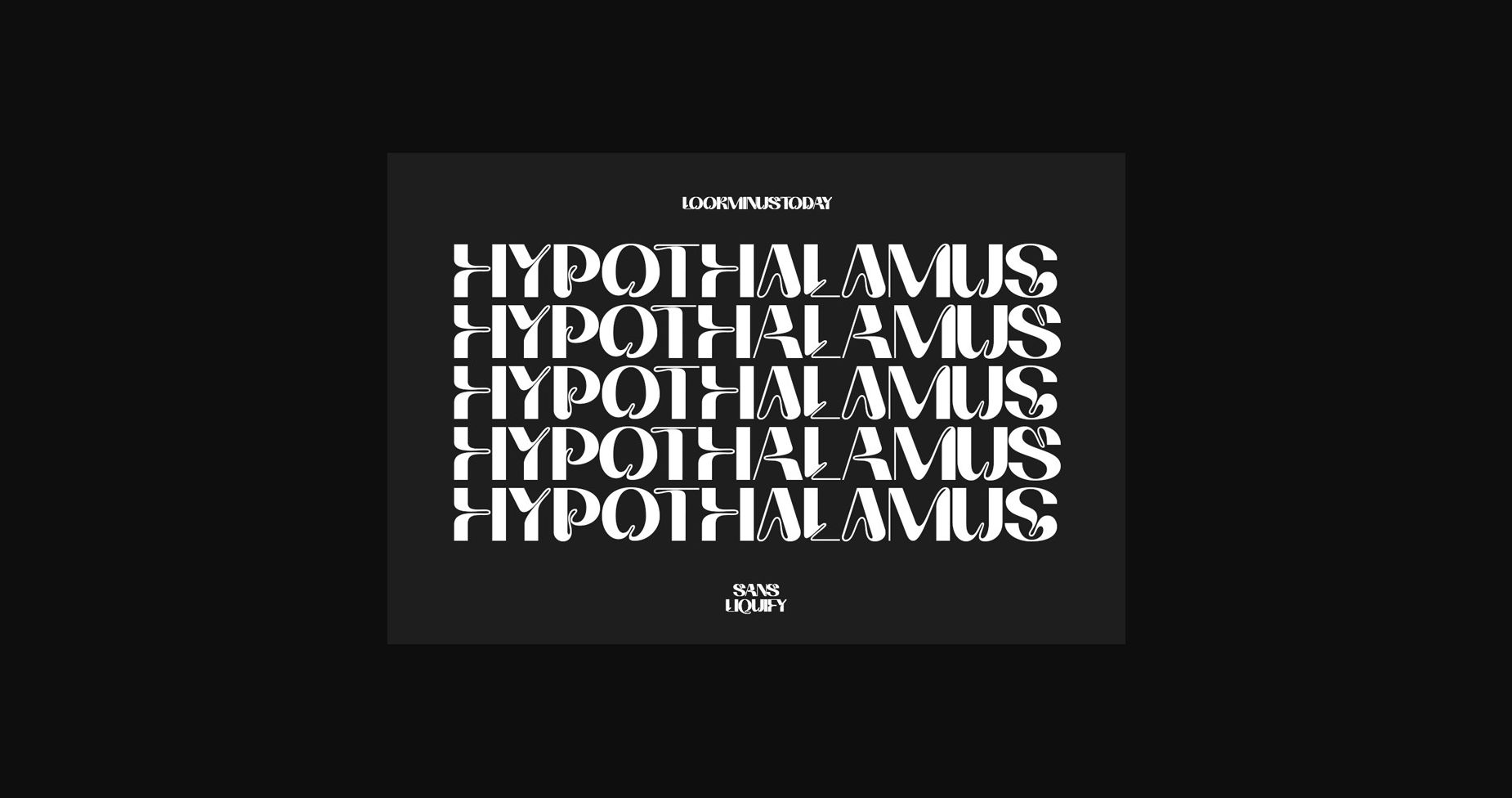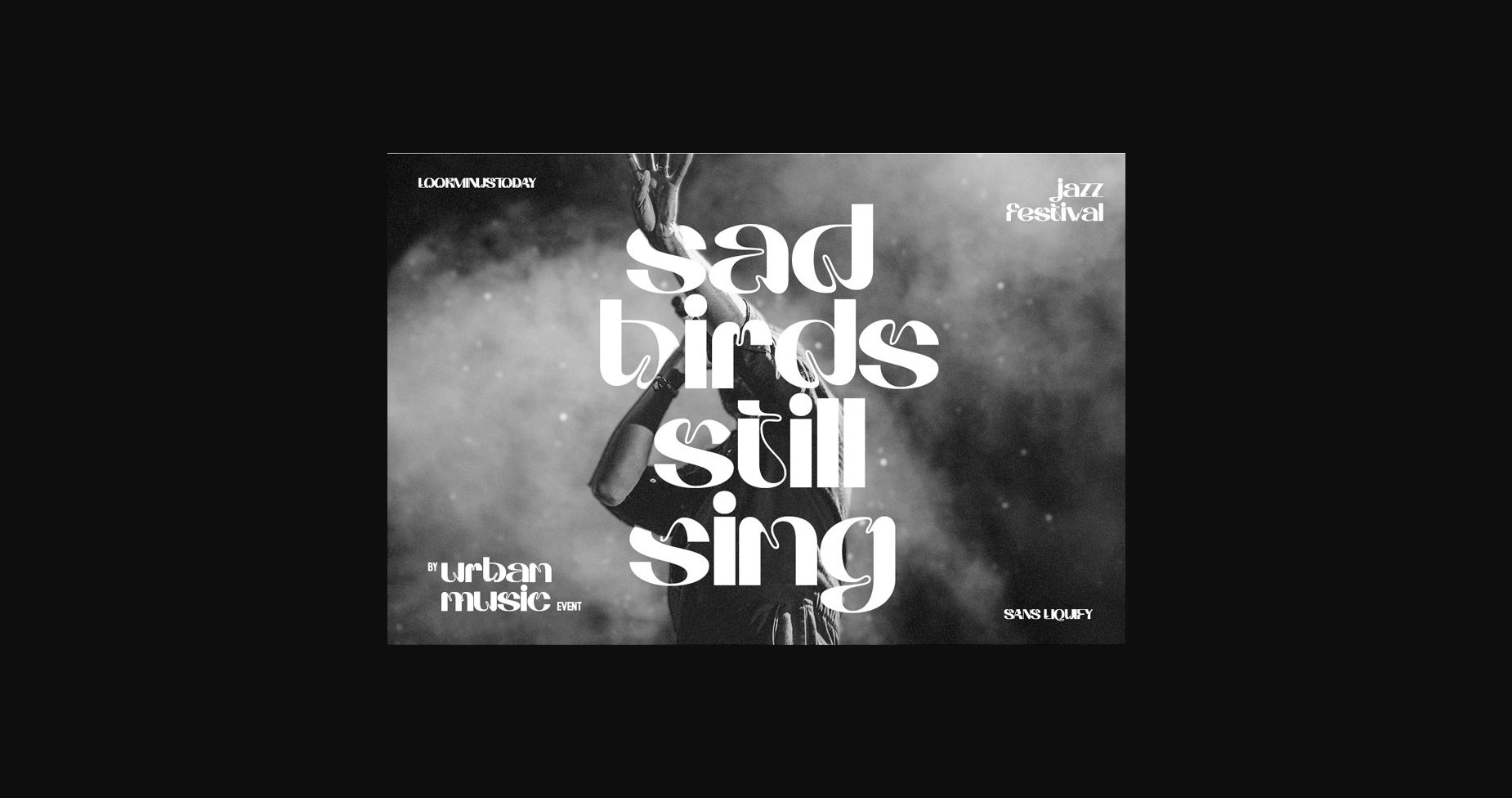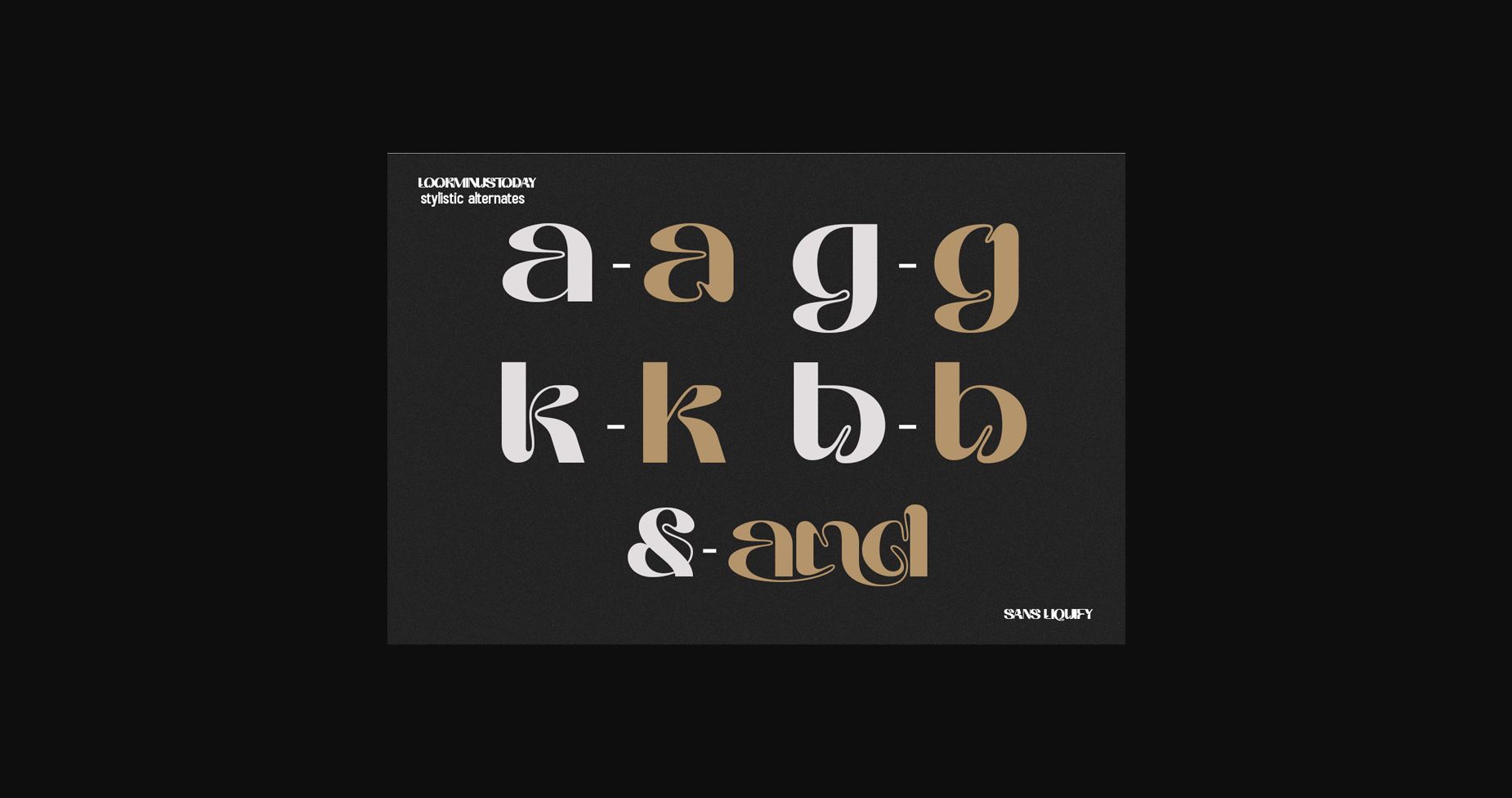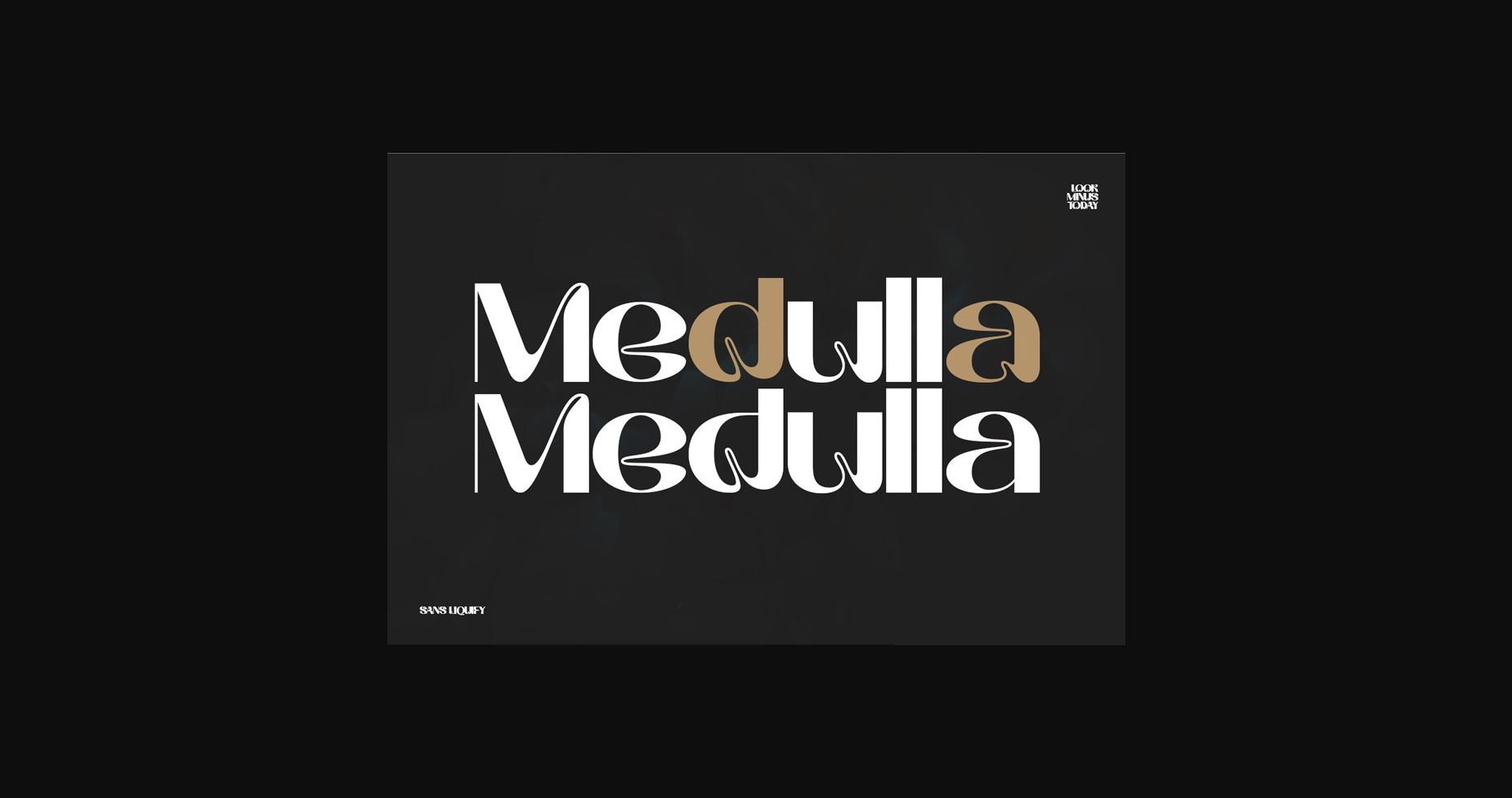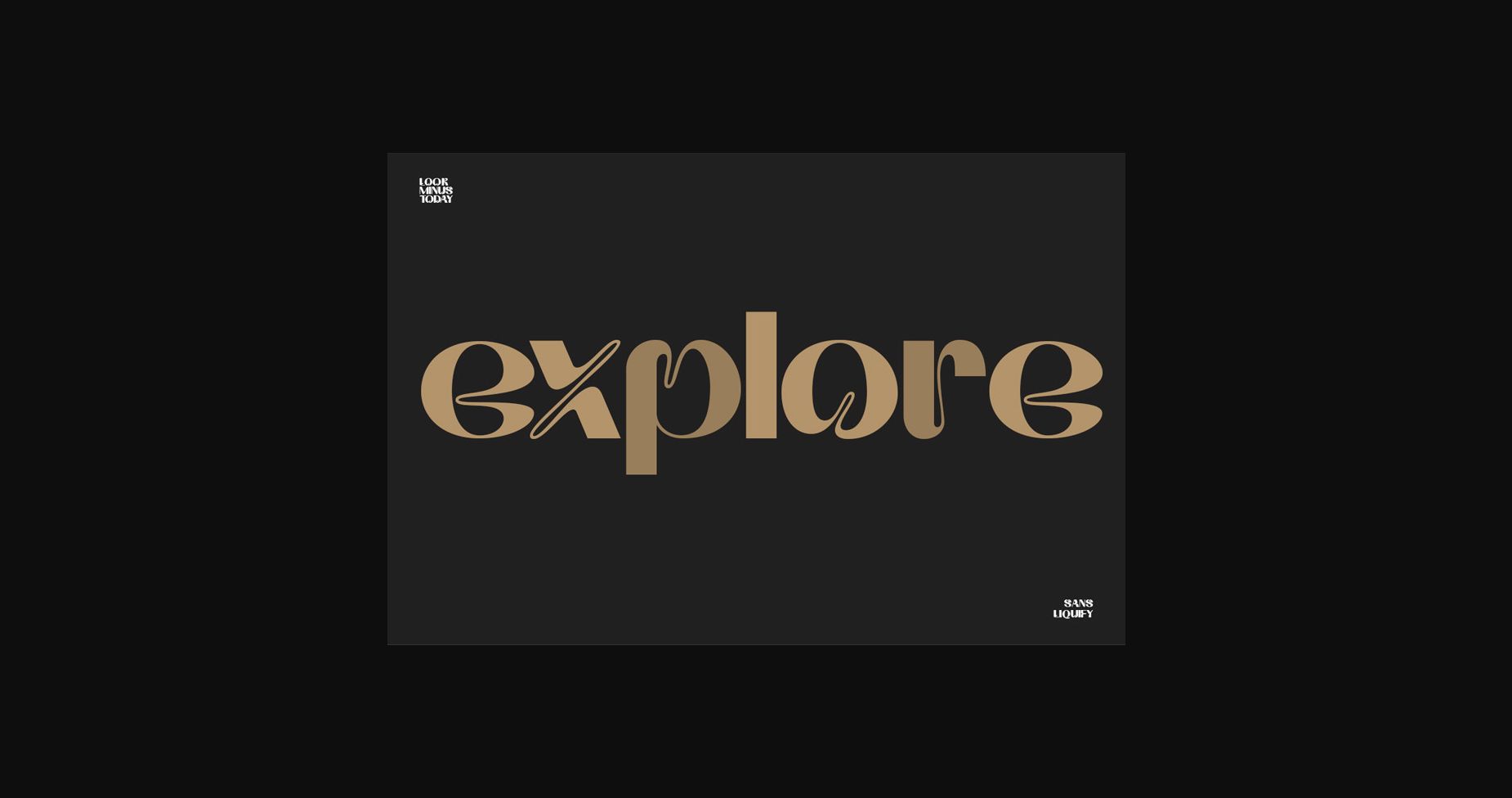
About Hypothalamus Font
Hypothalamus is inspired by the flow of water that flows so beautifully. This versatile font is perfect for all design needs, from print materials to digital media.
With the right balance of thickness and spacing to get the beauty of how nature can create such beautiful shapes.
Its elegant lines and smooth curves make it a great choice for a variety of design applications, including branding, advertising, packaging, and editorial design.
With the right balance of thickness and spacing to get the beauty of how nature can create such beautiful shapes.
Its elegant lines and smooth curves make it a great choice for a variety of design applications, including branding, advertising, packaging, and editorial design.